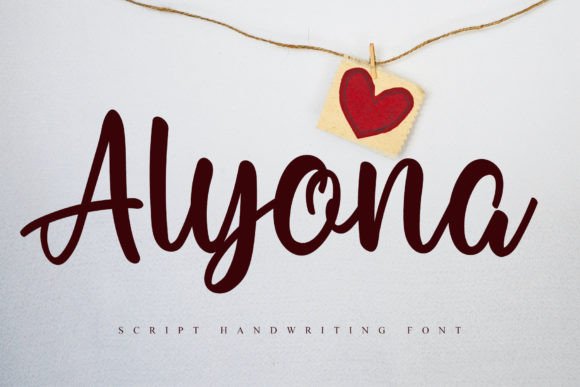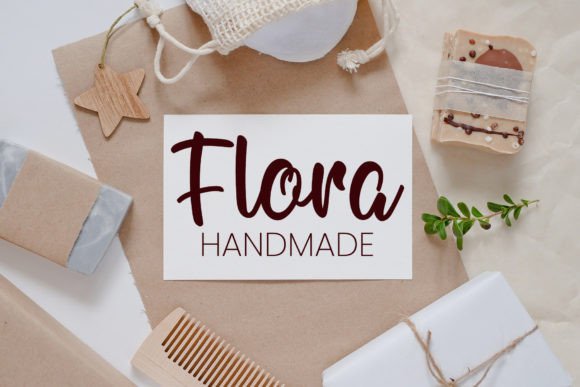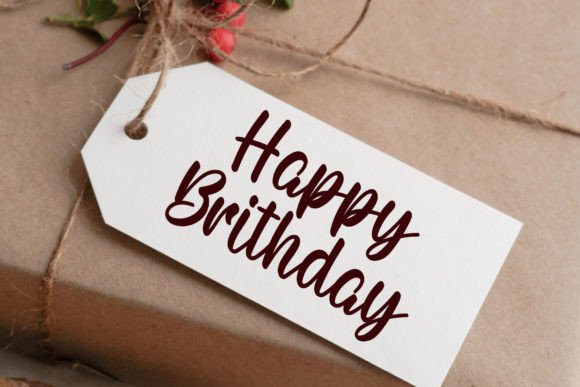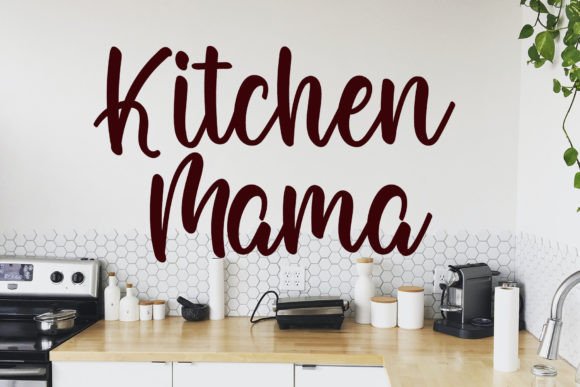
Introducing Alyona Font
The Alyona Font is a stylish and dainty script font that exudes elegance and charm. This font is highly versatile, making it well-suited for a wide range of design projects. Whether you’re working on logos, branding, labels, photography, or watermarks, Alyona adds a handwritten touch that enhances any creative endeavor. Its ability to convey sophistication and authenticity makes it an excellent choice for special events and personalized designs.
Unique Features of Alyona Font
- Elegance and Charm: The Alyona Font’s stylish script design infuses projects with grace and creativity. It ensures that your work shines with a personalized touch.
- Versatility: This font adapts seamlessly to various applications, from creating distinctive brand identities to adding elegance to photography and labels.
Applications of Alyona Font
- Branding and Logos: Use Alyona to craft unique logos and branding materials that stand out with sophistication.
- Photography and Watermarks: Enhance your photographs with elegant watermarks that reflect your style.
- Special Events: Design invitations and materials for weddings or events with a touch of handwritten flair.
The Impact of Alyona Font
Incorporating the Alyona Font into your creative process elevates your work by making it visually captivating and memorable. Designers seeking to create lasting impressions will find this font an essential tool. Its elegant style ensures that designs radiate grace and authenticity, helping them stand out in any context.
Why Choose Alyona?
The Alyona Font excels at adding sophistication to various design projects. Its versatility allows designers to create visually striking work that leaves a lasting impression. By choosing Alyona, you ensure your designs are not only elegant but also unique and personal.
This font is not only suitable for logos and branding but also excels in creating memorable designs for special occasions. Its delicate script style offers a personal touch that enhances invitations, greeting cards, and more. As you explore its potential, you’ll find that Alyona’s charm lies in its ability to transform ordinary projects into extraordinary works of art. Whether you’re designing for business or pleasure, this font provides the elegance needed to make your creations truly special.